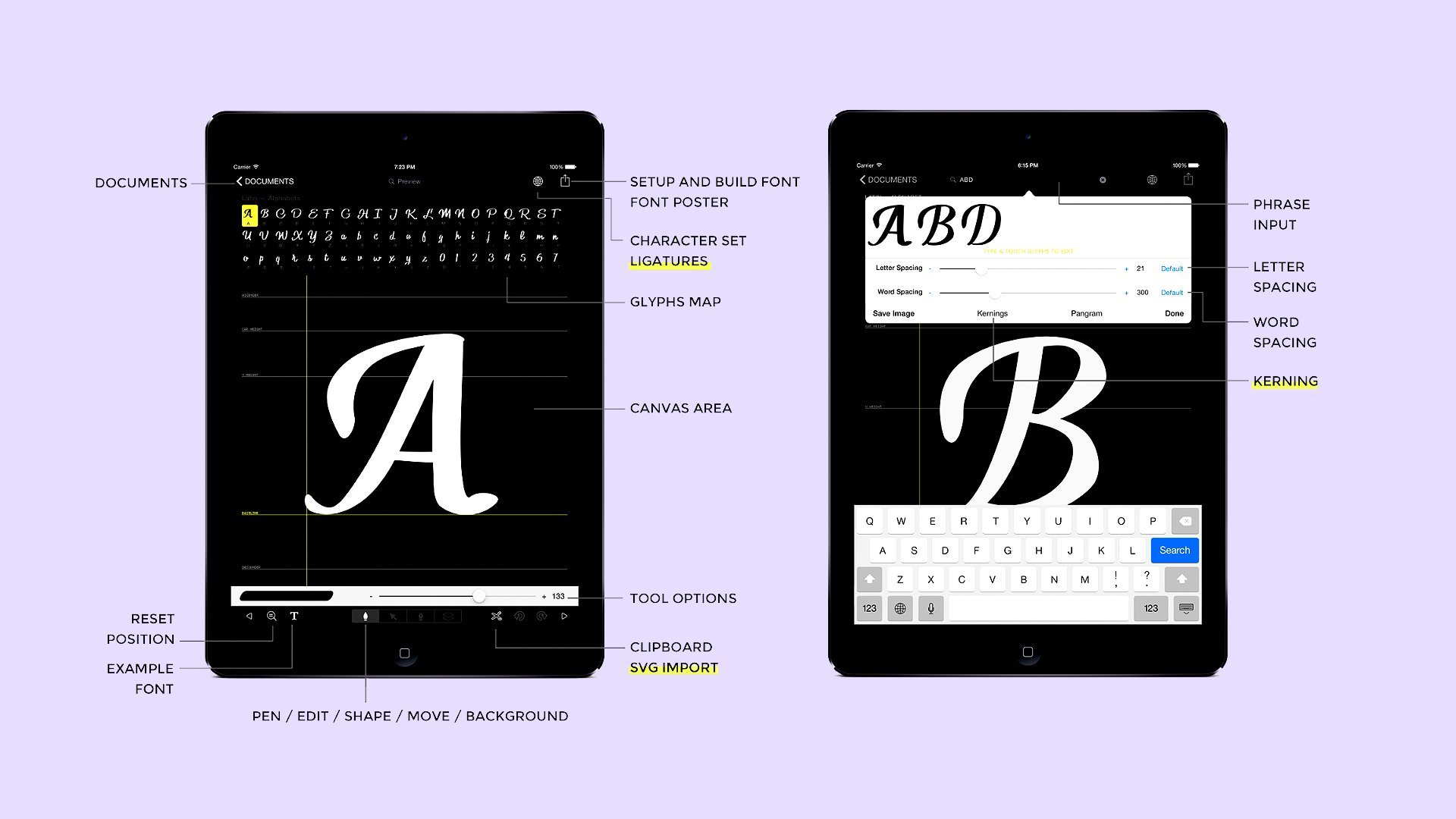
Create Your Own Font on the iPad
Introduction
What You'll Need
Anatomy of Typeface
Begin Building Your Font
Numbers & Symbols
Extended Alphabet (Accented Letters)
Spacing Between Letters (Kerning)
Make It Official
Start Using Your New Font
Adding Light and Heavy Versions
Project
About This Class
Have you ever wanted to create your very own font, but feel overwhelmed by the process and not knowing where to start? Maybe you don't have the money to spend on the computer programs needed or the time to invest in learning how they work, let alone the aspects of font building itself.
I'm pleased to bring you a class of modern technology at its finest and easiest: You will now be able to create a complete font using nothing but your iPad and a $5 app. Keep the hundreds of dollars you would have spent on computer programs and treat yourself to a fancy dinner once your font takes off as the new "must have" blogger font, or the go-to font for flyers, or when a big company adopts it as a part of their branding!
This class covers:
1. What you'll need to begin
2. Basic anatomy of typeface
3. An in depth guided walk through to introduce you to an easy software (app) that you will build your font on
You're about to see how easy it is to export it and download it to your desktop to begin typing right away!
Creativity can really unleash as you learn how to manipulate letters to give off a certain impression. Dive into this class prepared to learn, because in no time flat, you'll be whipping out fonts like you wouldn't believe.
Side note- It's SO MUCH EASIER to create a font with the Apple Pencil than with a computer mouse or trackpad. Like Whoa. Can't wait to see you in the class!
1. Introduction: I'm Peggy, I'm also known as the pigeon letters. In this class I am going to show you how to easily create your own font only using your iPad, the iPad Pro. It's very simple and I'm going to walk you through the entire process to make it super easy. You don't need Illustrator, you don't need any font programs on your computer. I'm really excited to show you guys because I've had so much fun creating fonts because I promise you you're going to be sucked into this for at least the next few days because it's so fun. I look forward to getting started, and I will see you in the next video. 2. What You'll Need: The tools that you need for this class are very simple. You will need your iPad Pro, you will need your apple pencil. I'm not sure if this program works with other stylists? I don't see why it wouldn't. I prefer the apple pencil it has the most sensitivity for strokes, in general, with the iPad. Then the last thing that you will need is this app called iFontMaker. It's I-F-O-N-T-M-A-K-E-R you can get this in the app store. Go to your app store, go to search, type in iFontMaker. It's little symbol looks just like this. You'll want to purchase this, download it, and then open it up, and we will get to fonts in just a moment. 3. Anatomy of Typeface: Before we jump into creating a font, I want to go over some basic anatomy typeface with you so that you are understanding different types of aspects that you can add into your letters to build them to create something that is very characteristic and unique to you, knowing these terms. Ends with you that's going to help with the character terms. The bottom here where your letters are going to sit is called your baseline. The next line is your x-height, which is the top of your lowercase x and most of your lowercase letters will sit into that area as well. Then you have your cap height, which is the height of your capital letters, and then we have your ascending line which can be just higher than your cap height. That's where the top of your D will come up to and what not. This can also be at your cap height. You also have your descending line which dips below the baseline. That's a quick reference to your guidelines, and there's a cheat sheet in the class resources, which from a desktop or laptop you can access by going to the tab your project, and then you'll see them on the right-hand side there. Moving into character anatomy, the first one that I want to go over is weight. You've probably seen this and other fonts where it will say, let's just call it font-style, so you'll see font-style light, font style, font style heavy. This is the same idea as pressing the B for bold, the only difference is it's in separate files, which is what this program will create for you. Unfortunately, you're not able to upload one font and then press B for bold, but it's really easy to extend the width of your line work to create a second file for like that heavy version. That's the bolder version. You can also do a lite version, so weight is something to keep in mind. There's also letter spacing and you've probably seen this also where you'll see font style condensed, font-style extended, and then just the basic. Luckily, most font programs now we'll do this for you. There's usually a setting on your computer to where you can do that and extend the spacing in between each letter, but on this program you can also choose what your default will be so that you can get them closer together, move them far apart, and we will get into that. The character anatomy to each individual letter. I'm just going to go over some common terms with you that you may or may not have heard of, but this way it will give you an introduction to what this will look like. The first one we'll look at is the ascender, which is the part of a lowercase letter that rises above the x-height. We have our descender, which is the stroke that descends below the baseline, so we have our g, j, and p, and then we have our arm. The arm is a horizontal stroke that doesn't connect to a stroke or stem on one or both ends so like the T, F, and E here. Then we have our leg, which is the lower down sloping stroke like on a K, or an R, sometimes even the Q,. We have the bar, which is also known as the crossbar, which is a horizontal stroke. It's different from the arm and across stroke because each end connects to a stem or a stroke, and whereas the cross stroke is a horizontal line that's intersecting the stem, like the dash on the t and the f. The stem is considered as that vertical stroke. A bowl is a fully closed rounded area. You'll see this on the o, you'll see it on the d, and b. These can also be known as counters and the open space and a partly or fully closed area, so the difference with a bowl is that the bowl is fully closed whereas a counter can either be fully enclosed or partly closed. Like the m or the n or the h, these have those curved, rounded areas, but they do have that open space, that negative space inside the letter. The shoulder is that curved stroke that's aiming downwards so on the h, or the m, the n. Then we have the serif, which you've probably heard of. The serif is a projection off of the main stroke which is added as a stop to the beginning and end of the main stem. You can a serif into a bracketed serifs, which the bracket is a wedge connection between the stem and the serif and this just adds a softness to the serif. It also adds more of a complete look, whereas the unbracketed serif is more sharp, which can add a lot of personality depending. Play with those elements. Then we have obviously serif off, which means that there is no serif at all, which leads us to the terminal, which is the end of a stroke that does not contain a serif. Then we have the ball terminal, which is the circular form at the end of an arm. Those are the terms I'm going to give you guys. I'm not going to go into too many more. I just want you to have those as point of reference and as a cheat sheet in the class resources, so please feel free to reference that. We will move into actually building our font. 4. Begin Building Your Font: You can see when I open my program up, I've got a few fonts that are in process of being built. Some of them are finished, but I have my regular font and then my heavy version. You can see that this is the regular heavy version. I'll show you how to do that so that you have the different varieties so that you can apply a bold look to the font as well. Go ahead and select new. This is the page that will open up and you will see the capital A is selected under Latin alphabet. If you scroll through here, you can see all the different symbols that you have the opportunity to add. It's going into Japanese, Tai, we have lots of alphabet varieties. You don't really need to use all of these, I would stick with the Latin, you can add as many of these as you'd like. Anything that you don't add into the system will be typed in just a very standard font when you're using the computer. If you leave it blank, don't worry, it will still register on using the computer just as a normal font rather than the style that you put in. When you're using the program, you can zoom in and out, you can move things around, you have to use two fingers, if you use one, it's going to apply the stroke. To press undo, it's this arrow down here in the corner, to press redo the arrow just to the right of that, you're going to undo that, and then we can also change the size of our stroke tray here along this slider. If you go thinner, it's going to be a lot smaller. Go larger, a lot thicker. Depending on the style that you want to use, the fonts that are presented for us as we go through here, is based off of a standard font. If you press this T button down here, you will see some different types of fonts that you can use as a base, which is helpful. Let's say you want something on a slant, you're not sure how far that letter's going to reach into the next area, you can select an italic font, then you can see, where that's going to be based, and then you can create your own letter at that same angle, knowing that you're going to stick to that angle throughout your alphabet. Hopefully that makes sense and so that's super helpful if you want your font to be italicized. For now, I'm just going to use a very basic font, I'm going to go a little larger and I'm going to do my capital A. You can see that it's basically going off of that same standard. When we make cross here is just going to be something loose toward the top. You can also apply weight to your down stroke, similar to faux calligraphy, like so, and then you can make this a lot larger to round out and make sure that this is rounded out at the bottom. Another thing that you can do for strokes is select your arrow, you can see the strokes that you just put in, and you see this little lip right here that's making that edge not so smooth. I'm going to select that one, so if I move that up or down, you can see how it smooths that out and then it's a lot smoother. Any area that needs to be filled in, you can do that. I feel fine about that A and so we will move into B. You can either select the B up here, or I can select the button for next here, or go back down here. Going into B, I'm going to add my down stroke here to make that thicker, get some weight right here and then gets some weight right here. You can see how that looks a little bit choppy here, so I can pull out and press the arrow, press this and drag that, see where the red areas line in the middle and you can see that it puts that right in the middle of that stroke. It's nice and smooth. I'm going to do the same thing to this area here. I select my arrow, I select the stroke. This one I just want to change the angle so it's more seamless. I'm going to pull this and that changes the direction of that stroke and then it's going to be a lot smoother, like so, but it looks like I couldn't move that in just a bit, and that's it. I'm going to go to my C, add my weight line, that's it. Go in and adjust, pull this over, probably pull it down like that and then you see that there's this guy that I just exposed by doing that, so you want to watch out for that, pull that in so that's not exposed anymore and then do the same thing to the bottom. Pulling this down, you can see that there's still a bump, so we will change that angle and then we can pull it to the middle, and that will be a lot smoother. To the D, add my weight line. Just like the B, I have this hanging off on purpose. I'm going to do the same thing here, add my weight line. You want to make sure to occasionally go back and check, your other letters to make sure that they look consistent like my A looks a little small in comparison to my E. I'm going to go back and you can actually enlarge these by pressing this plus with the arrows, it looks like a compass and then pulling it in and out like this. You can actually move where it is on the guideline also. I'm going to do that slightly, that looks good to me and then I'll make sure that my B everything else looks like that. Make sure that those are consistent as you're moving along. We'll go into F. I think I want this to be a little bit longer. If I press the arrow to select the path that I want to change, I can pull it out like this. Going to my G, hold my weight line through. You can see that that's sticking out on the bottom here. I'm going to select that path, pull it to that red part to the center of the next stroke, and that looks a lot better. I'm going to my H. Notice that for me, I'm choosing a specific style to stick with and all of my crosses are up pretty high. This is going to help build your font as a whole so that you have consistency throughout and creating your own style. My I, I'm going to go down here and adjust this line, pull it down and then there. My J, K, L, M, N and I'll just keep doing this throughout the whole alphabet. If you see something like this, like I don't know where that came from, I didn't put that there must have been a mistake. Press your arrow key, select it, delete. If you had a letter and you want to keep the exact same stroke as like your O, you can come to your O, press these scissors, say copy all. Go to your Q, go to your scissors, say paste, it's going to put that same symbol there. You can just add the leg. 5. Numbers & Symbols: When you're done with your lowercase, you will see that you're moving into numbers. You'll want to do the same thing. You just going to go through numbers and then you'll see some symbols. Get creative with these as well. [MUSIC] 6. Extended Alphabet (Accented Letters): When you're done with the majority of your assembles, you will come across some accented letters and the easiest way to go about creating these is to go back to your capital "A" and go to your "Scissors", go to "Copy All" and then you can return to that accent, go to scissors and press, "Paste". It also will give you the option to paste from A, so you don't even have to do that so that you can go just to any A and paste from A and then all you have to do is add the symbol N. So here to the scissors, paste from A, paste from A. But then you have that consistent capital A and so on. So if you go to your E, same thing, paste from E and then you just add your symbol. So that's how that will work and then you just continue to go through as many as you'd like to do. But the more you play with it, the more you learn. But that is how you will structure your letters. We will go over spacing and how to get everything to flow as you're typing to create actual words. 7. Spacing Between Letters (Kerning): When you're ready to piece your alphabet together and make sure that everything is cohesive, just go up to this Preview Bar and then you're going to click on Kernings. Here, you will see everything laid out together. Now, if there's anything on here that you don't like that you want to make adjustments to, for instance this guy, all you need to do is drag it exactly where you want it to be, and then it will scoot everything behind it along with it if it's in that grouping. Like the spacing between these two will stay the same. Now anywhere, if I have my zero followed by a comma, it will all remember those exact spacing. If I have any YU, it now has this spacing. YO now has this spacing. So you can change this anywhere that you see you might want to make an adjustment. My suggestion to you is to start from the beginning and go through each and every area that you might want to change. Then if you press Select up here, these are the different samples to go through, and I do recommend going through all of these samples because it's going to make it the most fluid. You can also enter your own sample and then see, but we'll do that at the end. So my next one, you actually have words that are built, and you can adjust exactly the way that you will want. So like all I'm doing right here is changing the YO so that it looks consistent. ES, I'm now pushing to be tighter here. EV, EA, now it's as condensed as the rest of it. X, just push it a little closer together. My N, maybe a little further away from the I. You can do this as much or as little as you want to for spacing. I'm at 70, you can even do this where you space it out quite a bit, have it nice and tight. As far as keeping it the same across the board, you'll want to go through and make sure everything looks nice and grouped together. This is also a good area to find out if there's a particular letter that you think you want to adjust because it just doesn't look right with the rest of them. So if you see that all, you have to do is return to that letter. So press Done, return to the letter, change what you want to change on that, and then go back to Kernings, go back to where you were just at, and then you can revisit and see suddenly, my O makes more sad. I don't know if you guys noticed before, but it bothered me. So now, that has changed and it looks like it makes more sense. Then I'll go to Select, I'll go to the next one, and then go through and do the same thing. The further in the list that you get, that you'll notice the less edits that you'll want to make. But like this one will give you options where you see AQ, AR, AS, AT, and goes down the list. So you really get a thorough idea of exactly what that's going to look like. Notice that these are grayed out. That means I haven't entered those letters in my actual alphabet yet. So once I do, I'll see those. Otherwise, if I were to leave it blank again, that's just going to type in a standard font on the computer. You might see some letters where like my F, everything next to it, I had to move over, and all that is is where I placed my F on the actual grid of the guidelines. There's nothing you have to return to fix. If the full F is showing up, just drag those letters closer so that you don't have any issues with it when you're typing your words. One that you'll really want to do is the very last one where it goes through each letter with the letter next to it. You can see how the spacing looks throughout the entire thing. Make sure there's nothing you want to adjust. I'm going a little bit fast. I would recommend really looking and making sure that you love the way that the layout is. So when you're done with that part, go ahead and preview something that you want to say. I'm just going to write the pigeon letters, and then that is how that ends up looking. So you see how that creates a very consistent-looking alphabet based off of your design. Here is where you can change the word spacing as well. Word spacing, letter spacing, so that can look really cool. Then once you have that, you can go into Kernings and see how that affects everything, how different it makes it. You can save different versions. You can save a condensed version, save it, extended version, save a bold and a normal or a light version. So I'll show you how to do that in the next video. 8. Make It Official: When you're ready to export your fonts and begin to use it on your computer. This is very simple to do. What you'll do is go to this top right corner and you'll see this box with an arrow that is pointed upwards. So select that and then you'll say, "Configure and build font." Then here you will title it. You can choose private, so where you only use it, can choose view only, where somebody can see it online, or you can choose public where other people can actually use it. You could click the I it'll show you what that means. You would just select, Build online. Then it may take a little bit. So you let that sit for a minute and then once it has finished your font will be ready. Then I'll show you how to import it onto your computer. 9. Start Using Your New Font: Once you've sent it to your Mac, you're just going to go to your downloads. I have my downloads doc right here, or you can go to your finder and go to your downloads. This is how to do it on a Mac and there is a specific way to do it on Windows that's pretty simple. I'm so sorry I don't have that to show you, but it is pretty simple if you just reference online and then it'll show you, but then you'll just double click it and say install font. Then it will install right here and you'll see it right here. Then your font is ready to use. Just open up a Word document and then go to your font, go to your brand. You'll see your font listed here. Then you can just type. In the next video, I'm going to show you how to change the width of your characters so that you can save it in a lighter version or a bolder version. 10. Adding Light and Heavy Versions: When you want to change the width, I'm going to do a light version of what I did because my letters are pretty bold anyway. But either way, whether you go up or down, this is going to show you how to do different widths. Before you change your weight, you're going to want to go back to documents and you'll see that your new font is right here. You're going to want to hold that down and then, you'll see a duplicate export and delete. Duplicate that. The reason why is because when you change the weight of your glyphs as a whole, you can't undo it. You want to make sure that you have the font you just worked on and it's good to go and you're not going to ruin it. Click the new copy, and then to change the weight, you're going to go to this percentage and then you're just going to drag this up or down depending on if you want to go thinner or thicker, you won't see this in a live preview. I would go down and then say apply to current glyph. So you can see how that looks. Notice that I have some empty spaces, so you might have to go through and adjust that, but I like this thickness. What I'm going to do is say applied to all glyphs. This is where it tells you you can't undo it, apply to all. Now all of them are much thinner. I'm going to go through and make sure that there's no white space that I need to take care of. When that's done, you can say Download Desktop font. Then I'm going to Air Drop it to my iMac. 11. Project: That's it, you guys. That's all I'm going to show you in this class. For your class project, I would like to see a 250 word essay. I'm just kidding. You don't have to do that. But I would love to see a screenshot of your new font, you can write whatever you want, just make it something fun, preferably a couple sentences. I'd love to see the structure. If you have any questions, feel free to post them in the discussions. But do upload your projects, I'm really excited to see what you guys create. This is a very unique and fun way to create a font, makes it really easy. Again, thanks so much and I will see you next time.